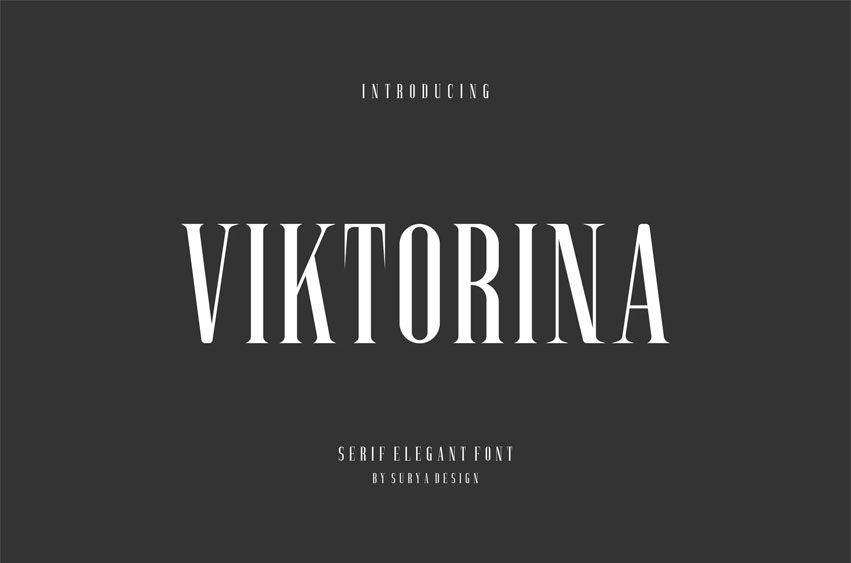
Viktorina Font
Viktorina Font Modern Font is a bold and authentic display font. The font is suitable for any branding project, like logos, esport, and many more.